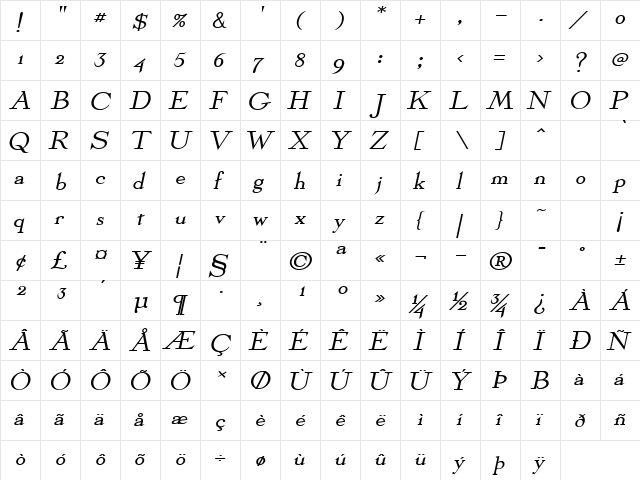
Olympus-Extended Bold Italic Font Preview
Design Context for Olympus-Extended Typeface
Olympus-Extended takes a measured approach to typography — its balanced proportions and neutral character make it a reliable workhorse for both digital and print work. Its italic angle brings a sense of urgency and motion to the letterforms. The heavy weight commands attention and anchors typographic hierarchies.
Pro Tip: Use Olympus-Extended for emphasis, pull quotes, and subheadings where its slanted energy can add rhythm to the layout.